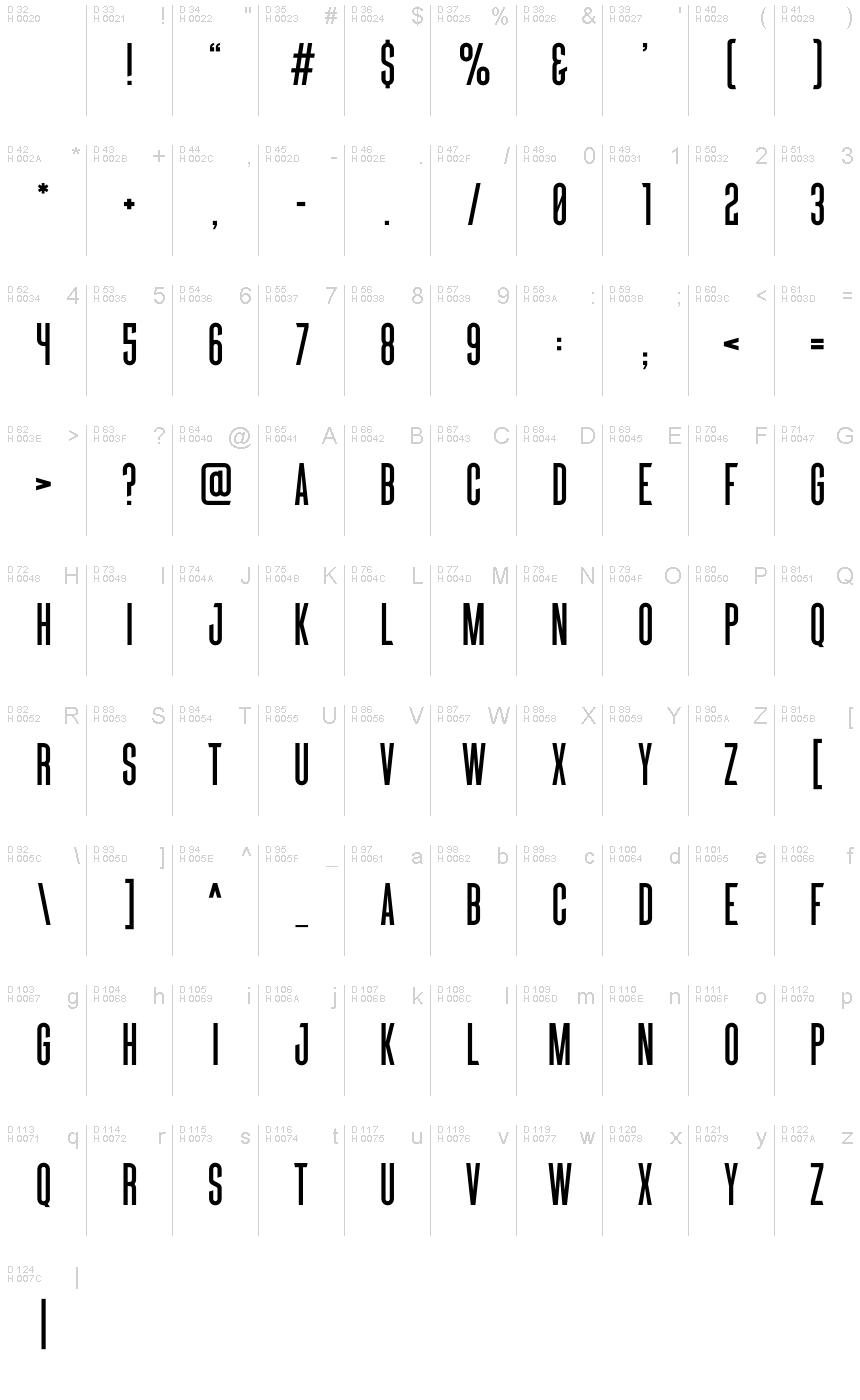
SOCIAL SANS
Social Sans is a captivating condensed sans-serif font created by BfredDesign. Its bold, geometric shapes and striking contrasts command attention, making it a visually arresting choice for digital media and branding. The font's condensed width lends an impactful, contemporary feel, while its clean lines and sharp edges convey a sense of modernity and sophistication.
This versatile font shines in a variety of design contexts, from social media graphics and digital advertisements to product packaging and editorial layouts. Its strong visual presence makes it an ideal selection for conveying messages with impact, whether in eye-catching headlines, dynamic logos, or striking typographic treatments.